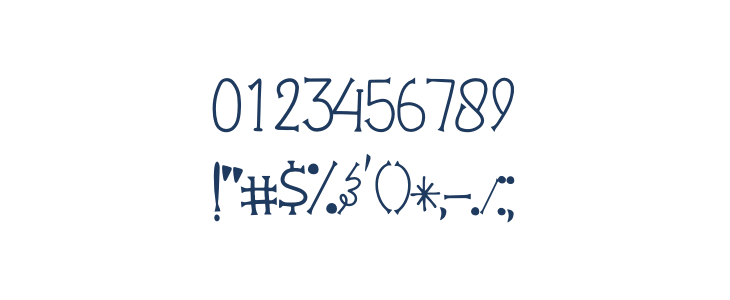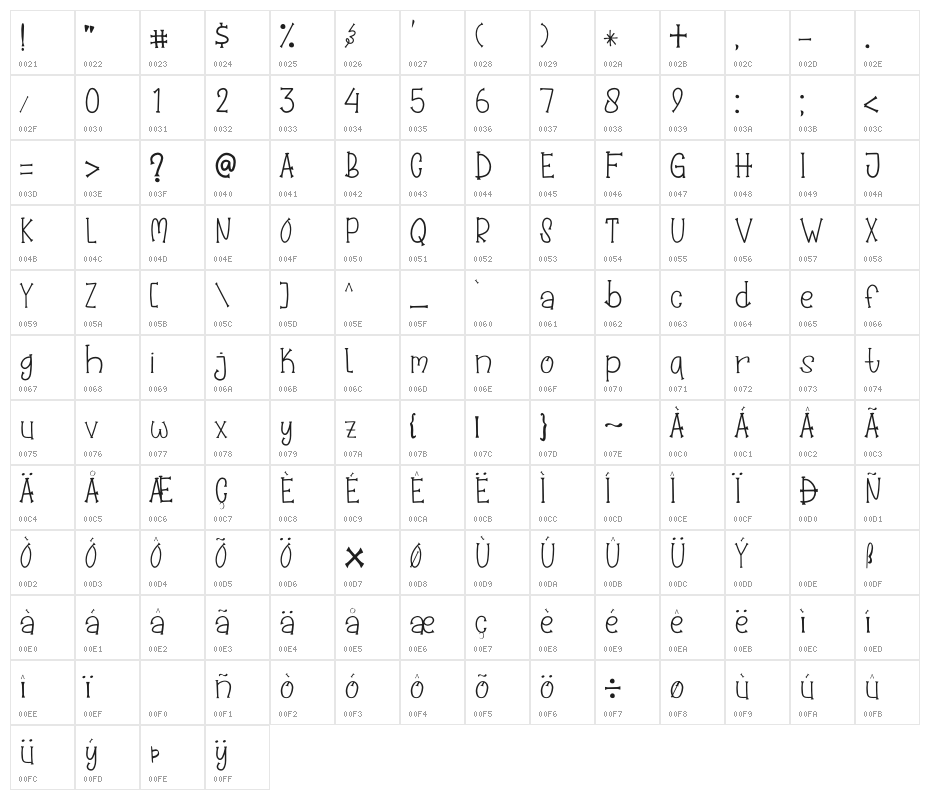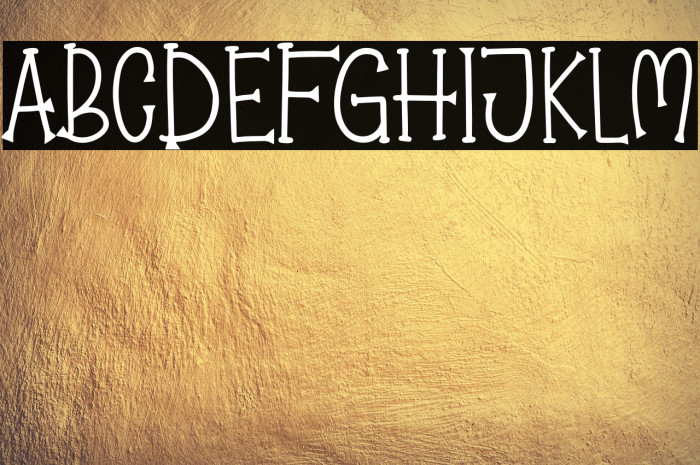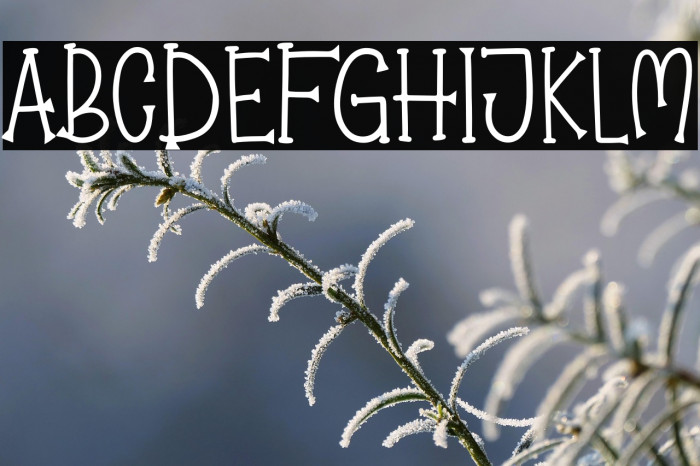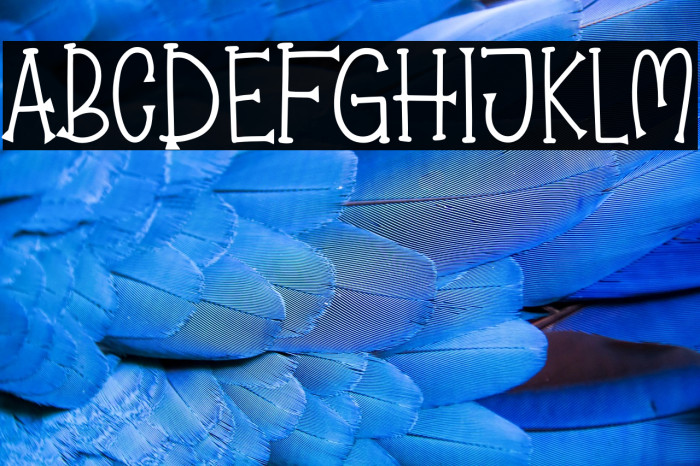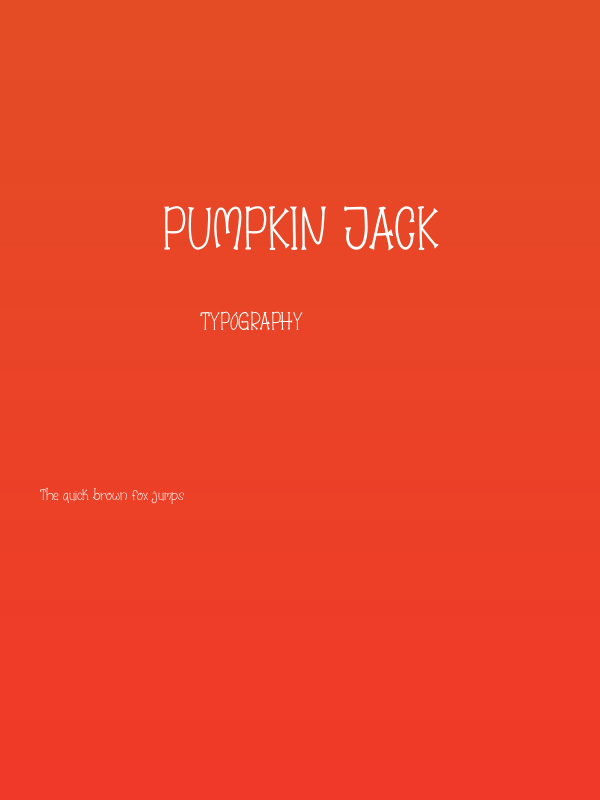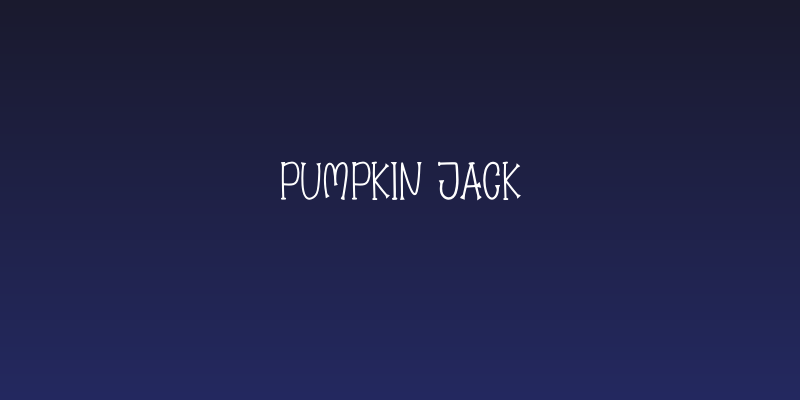
Pumpkin Jack Font
Pumpkin Jack Description
This playful and whimsical font features a hand-drawn style with a slightly uneven baseline, giving it a quirky and fun appearance. The characters are tall and narrow, with a slight tilt that adds to the casual, informal feel. The uppercase letters have a distinctive, exaggerated flair, while the lowercase letters maintain a consistent, flowing style. The numbers and special characters are designed to match the playful aesthetic, making them ideal for creative projects. The overall design is reminiscent of a festive, lighthearted theme, perfect for adding a touch of personality to any text.
| Proposed Projects | Ideal for Halloween-themed designs, children's books, party invitations, and playful branding. |